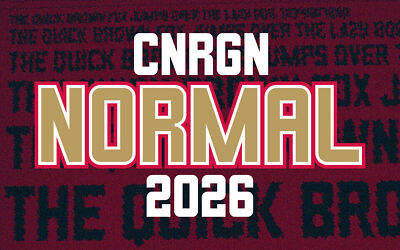
Feb 2, 2025DisplayCNRGN Block V2 Font CNRGN Block is a condensed and blocky display typeface inspired by sports activities. It’s great for posters, titles and any project where you need an eye-catching look. Font DetailsDesigned by: Brylle Conrad CoWebsiteLicense: Free for commercial use Download CNRGN Block V2 FontFile size: 4.94 KBCreated: February 16, 2025Updated: February 16, 2025 Download Explore similar fonts Grid Font Motorblock Font Bold Block Font Urban Block Font Forge Block Font Noise Block Font # Block# Bold# Geometric# Sharp# Square More fonts by Brylle Conrad CoCNRGN Block V1 FontCNRGN Kolehiyo FontCNRGN Army FontTondo MNL FontCNRGN Varsity FontCNRGN Wider FontCNRGN Varsity V2 FontCNRGN Mover Font